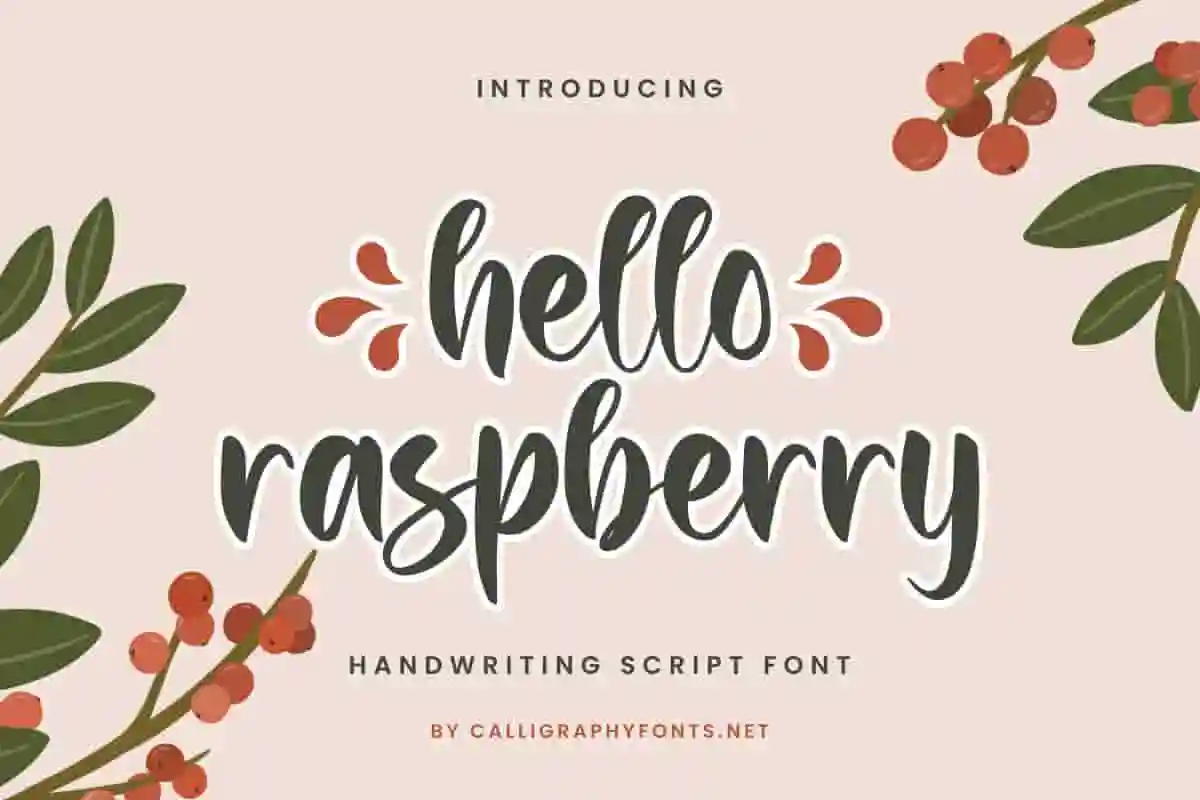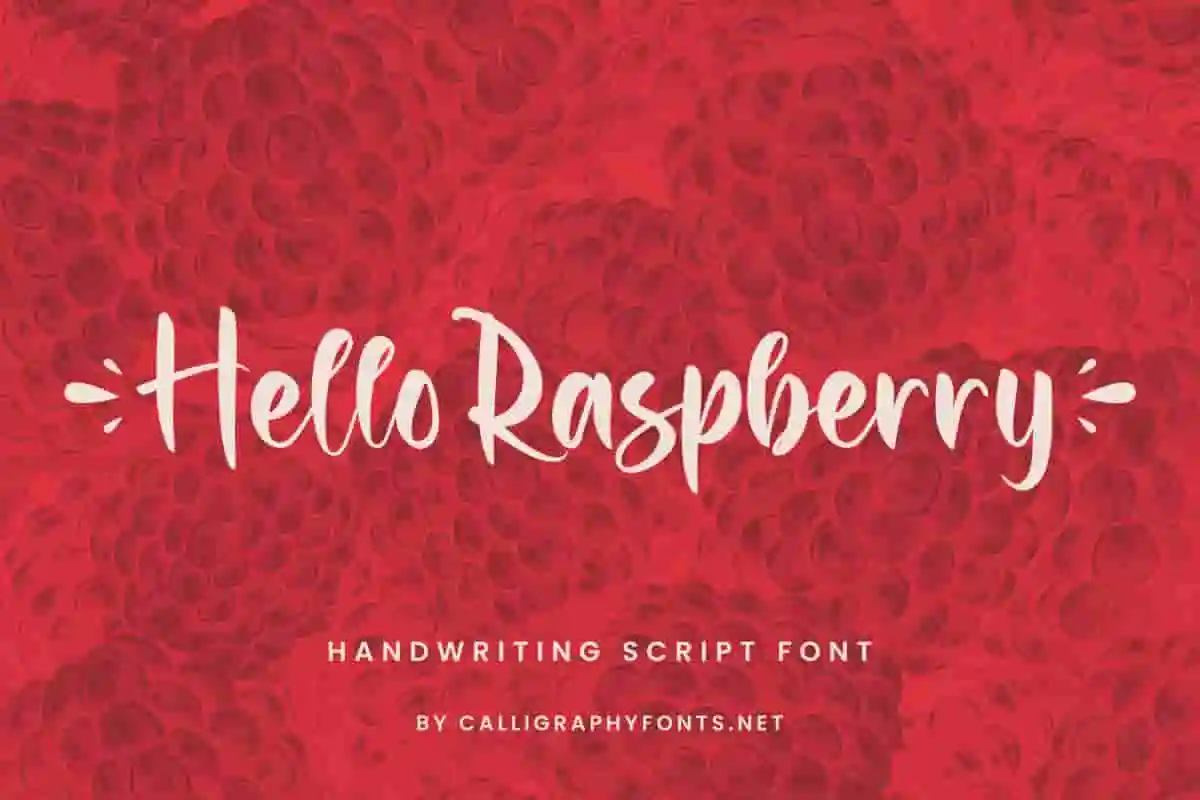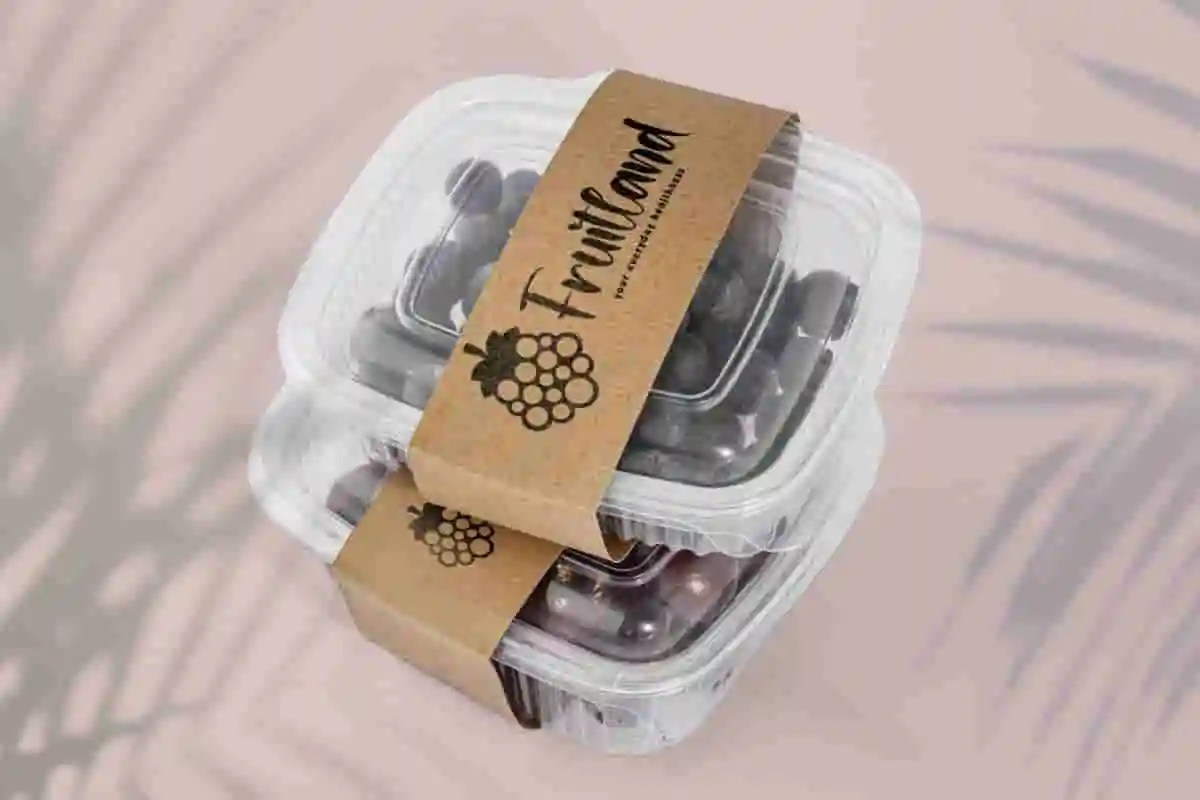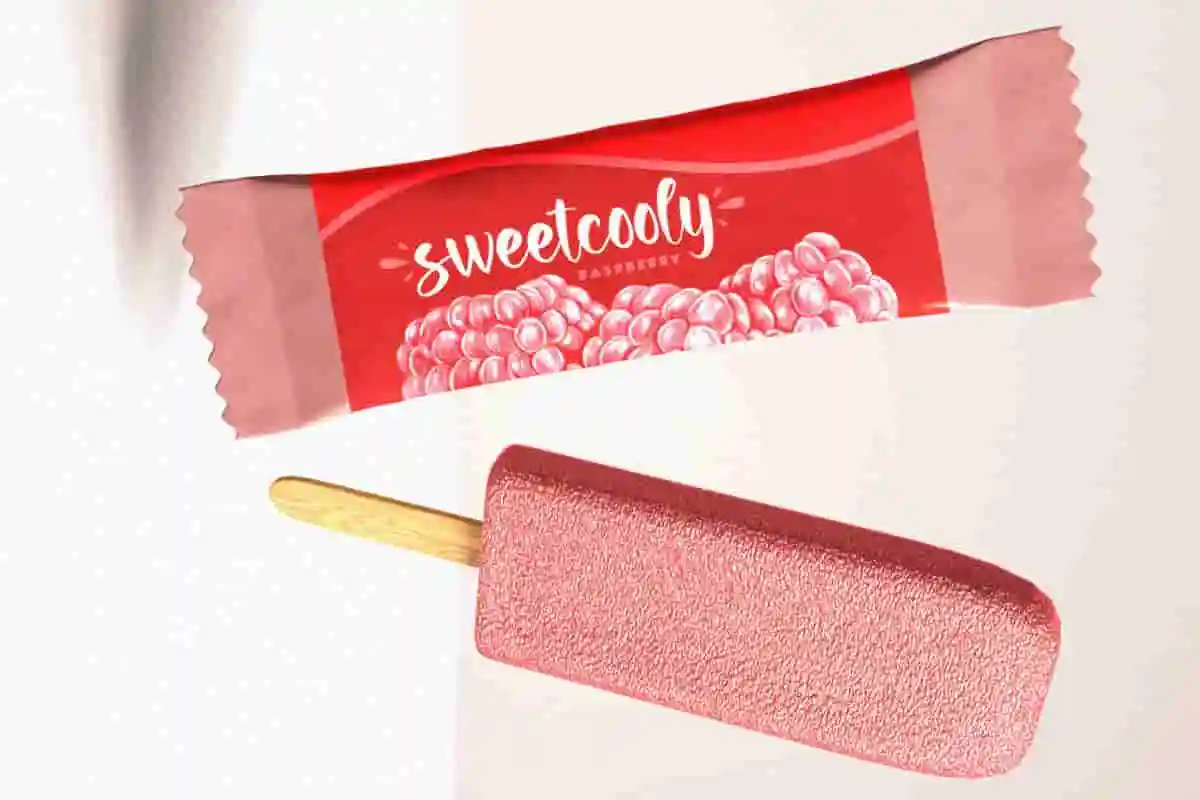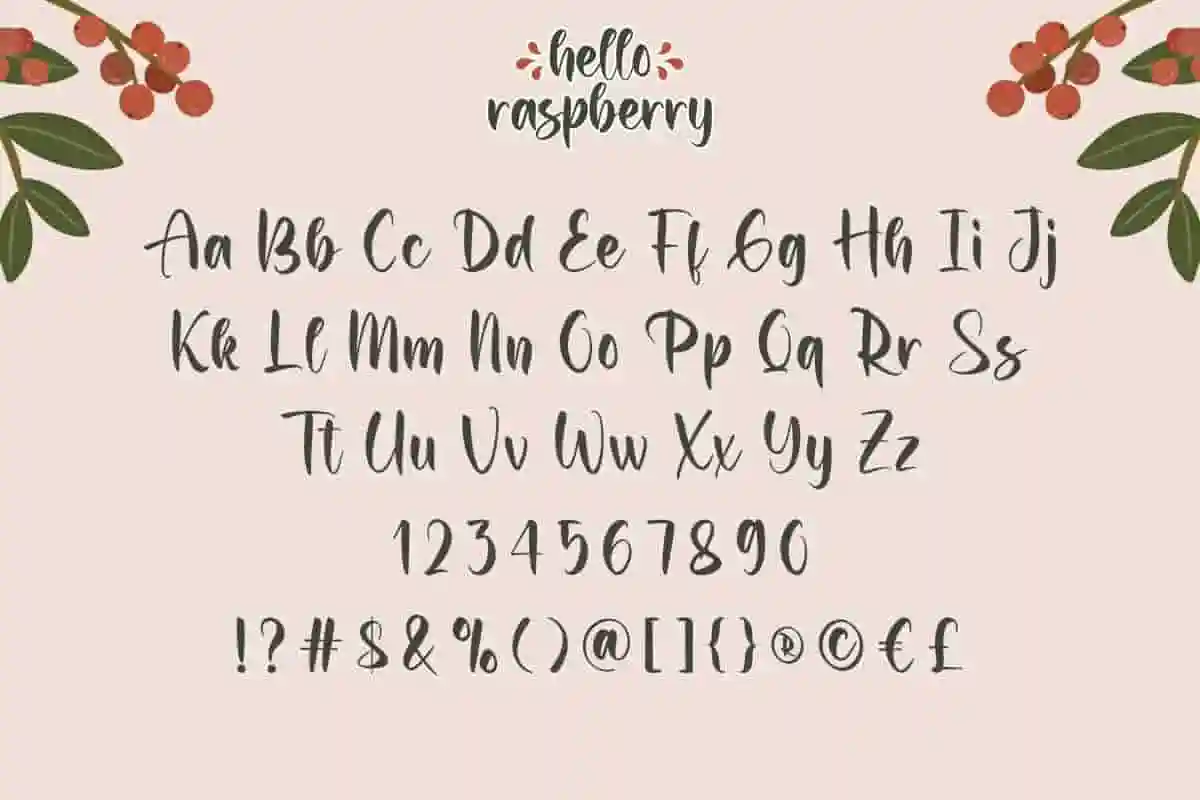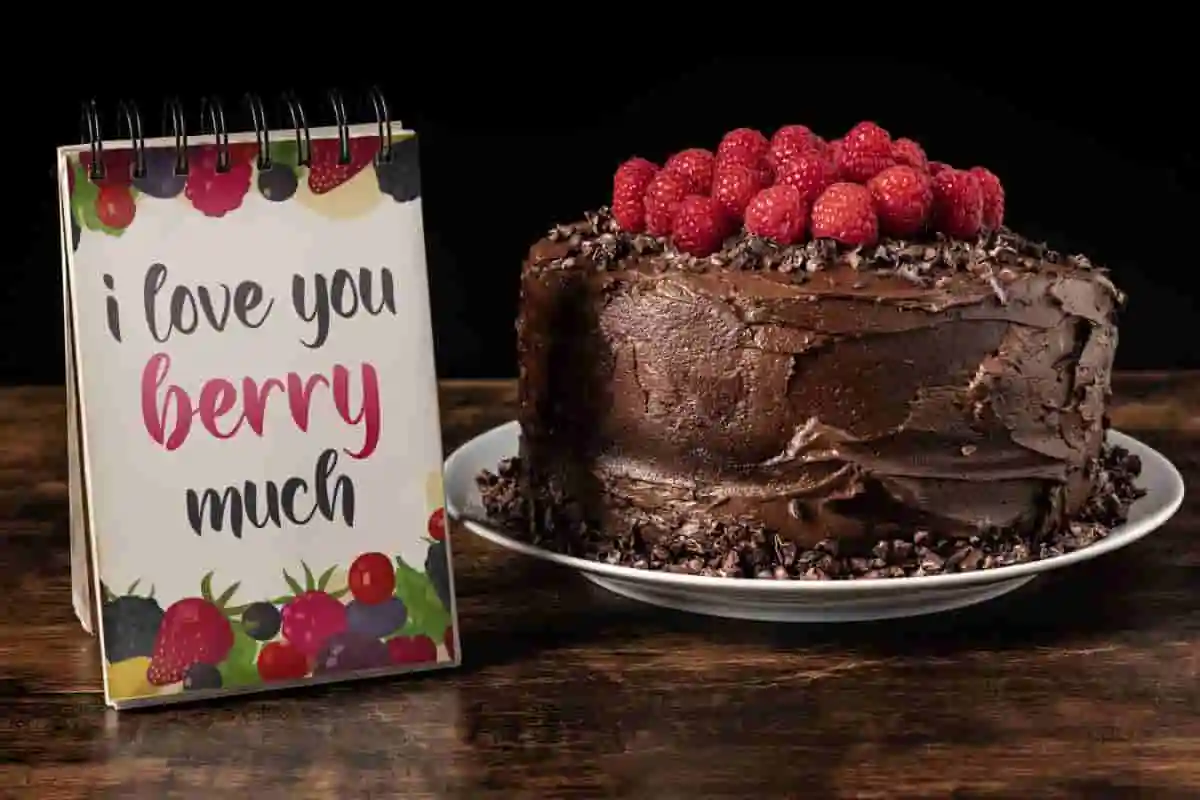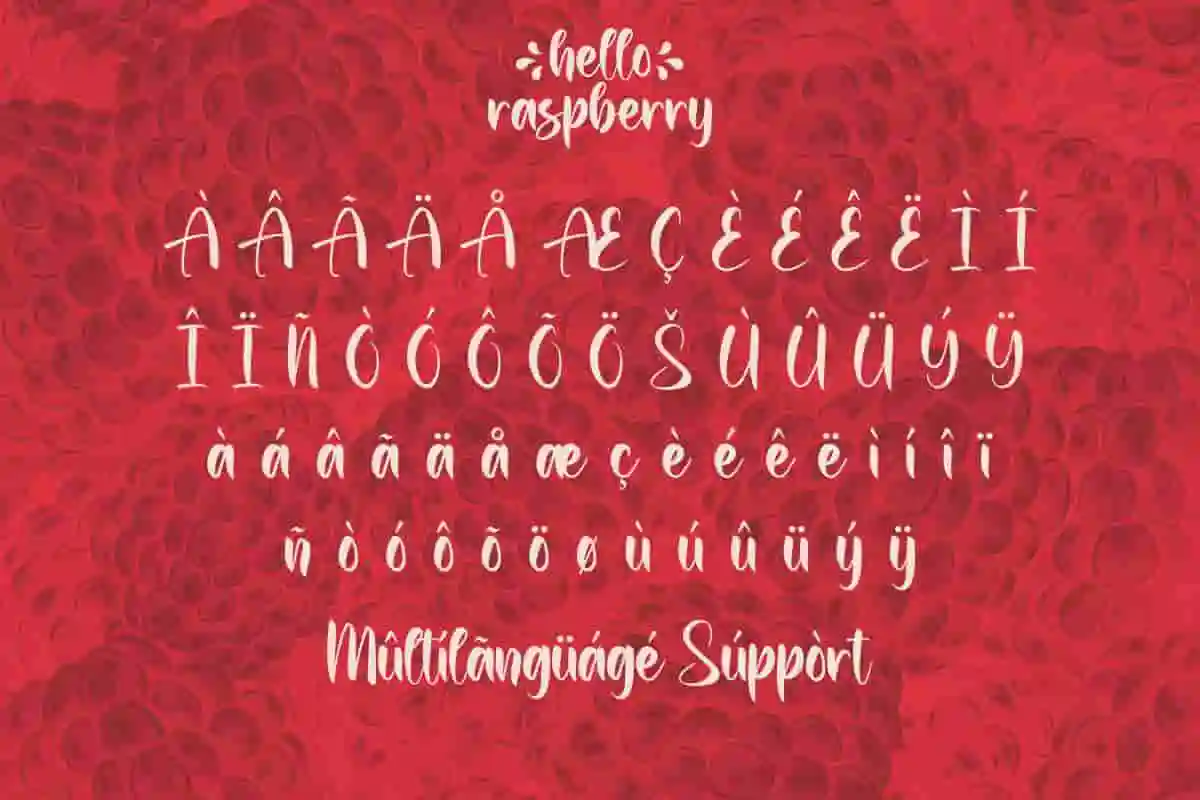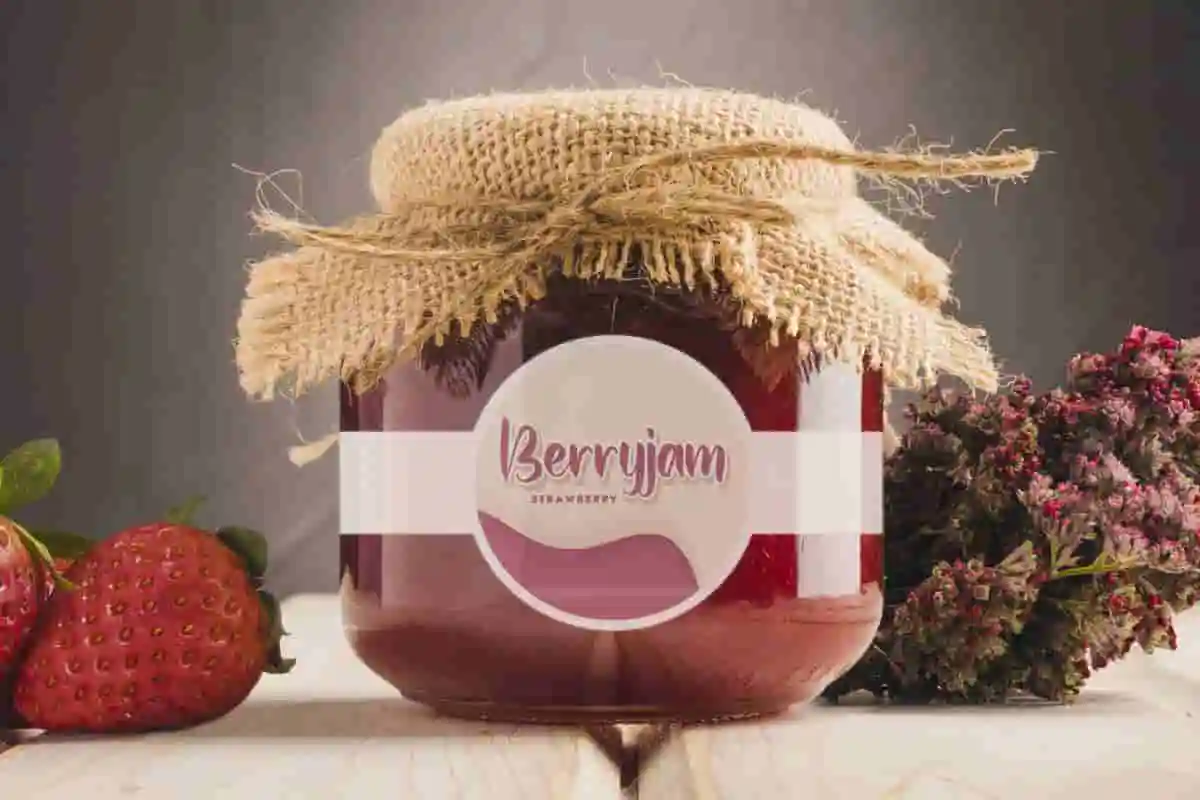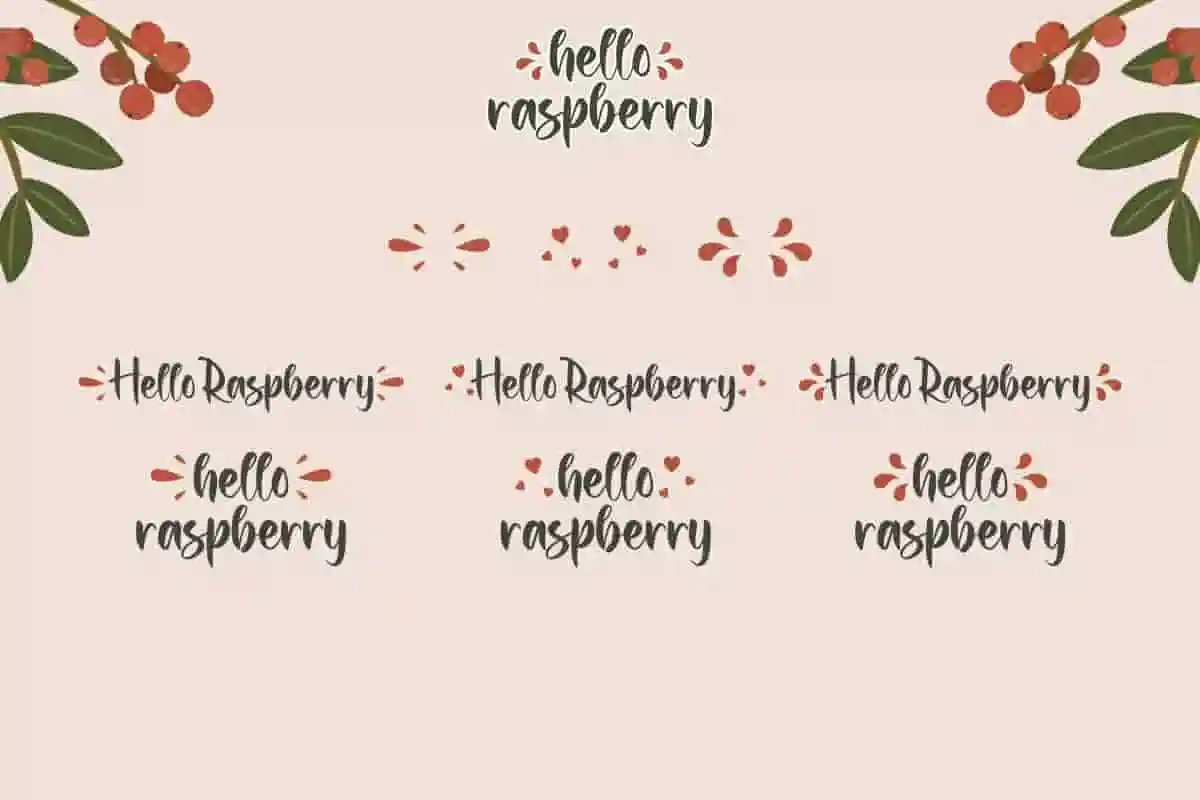
Hello Raspberry Handwriting Font
Hello Raspberry Font is a cute handwritten font with splash of freshness. The beauty script make it suitable for bakery, fruit labels, grocery, jam sticker, product packaging, recipe book, restaurant, or simply use it in your background writing.
Hello Raspberry Font is a fun handwriting script, created by Calligraphy Fonts. This font is inspired from the freshness of raspberries and will go well for your creative projects such as billboard, creating logo, ice cream label, product packaging, quotes, recipe book, title, etc.
Say hello to Hello Raspberry, a charming handwriting font full of personality and joy. With soft curves and playful strokes, this font brings the natural feel of handwriting into every design, perfect for those who want their words to feel real and expressive. Crafted with love and a hint of whimsy, this handwriting font shines in creative projects like journaling pages, planner spreads, social media graphics, or children’s storybooks.
Hello Raspberry is a cute and joyful handwriting font designed to add a splash of fun and charm to your creative projects. With its playful curves and bouncy rhythm, this handwriting style brings a sense of personality and spontaneity that’s perfect for lighthearted design. This handwriting font is ideal for planners, social media posts, children’s content, product packaging, and branding that wants to feel friendly and approachable.
Perfect for DIY crafts, journaling pages, classroom posters, or fun branding, this handwriting font is versatile enough for both kids’ content and lifestyle projects. It has that hand-drawn charm that makes text feel friendly, expressive, and full of life—just like real handwriting. With its casual letterforms and playful strokes, this handwriting style captures the feeling of writing freely with joy.
• Planner pages
• Cute product packaging
Hello Raspberry Font will be great for any industry including : bakery, cooking class, craft, florist, grocery, restaurant, and anything related to fruit and food processing, such as cake, ice cream, jam, juice, which requires a touch of charming handwriting. Carefully crafted so as to create perfection in the writing and add aesthetics to every design made, easy to read and swoosh characters that make it stand out.
Hello Raspberry Font comes with a full set of Uppercase and Lowercase Basic Characters, Number, a large range of Punctuation and Symbol, Swoosh, and also supports multilingual characters. Ready to use both on Windows machine or Mac with simple installations. It’s tested to work well in the Adobe Apps (Illustrator, Adobe InDesign, Adobe Photoshop) CorelDraw, and others. PUA Encode Characters means you can access all the glyphs and swashes with ease – Fully accessible without additional design software.